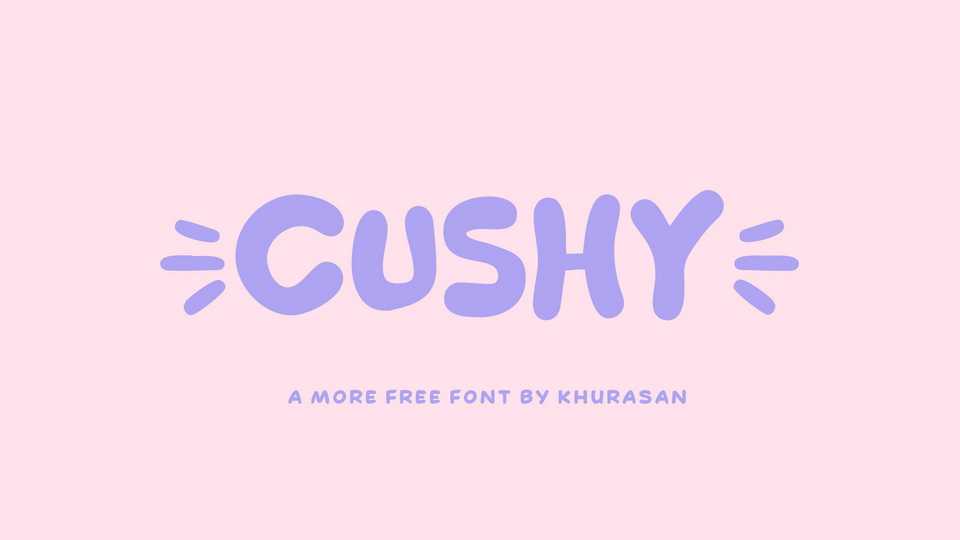
Download Cushy font, a sweet and smooth handwritten typeface designed to bring good vibes. Cushy font is perfect for any project that needs a touch of whimsy and charm.